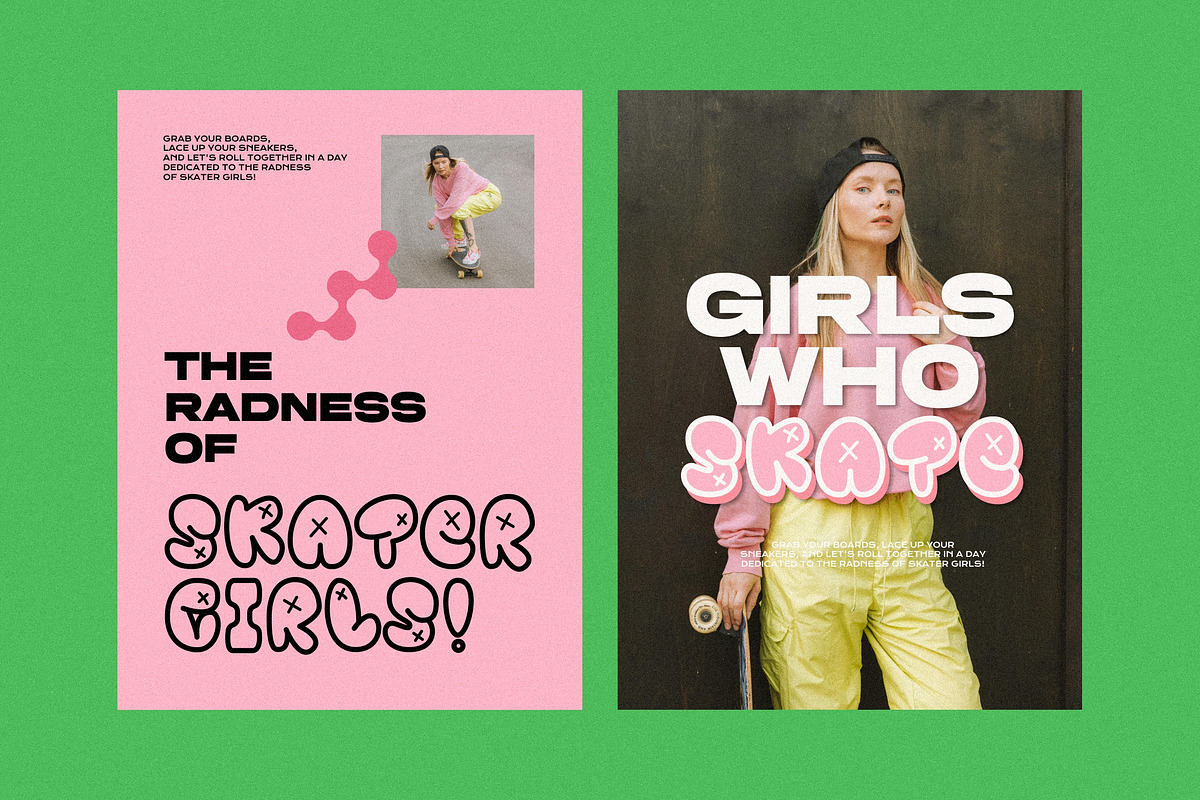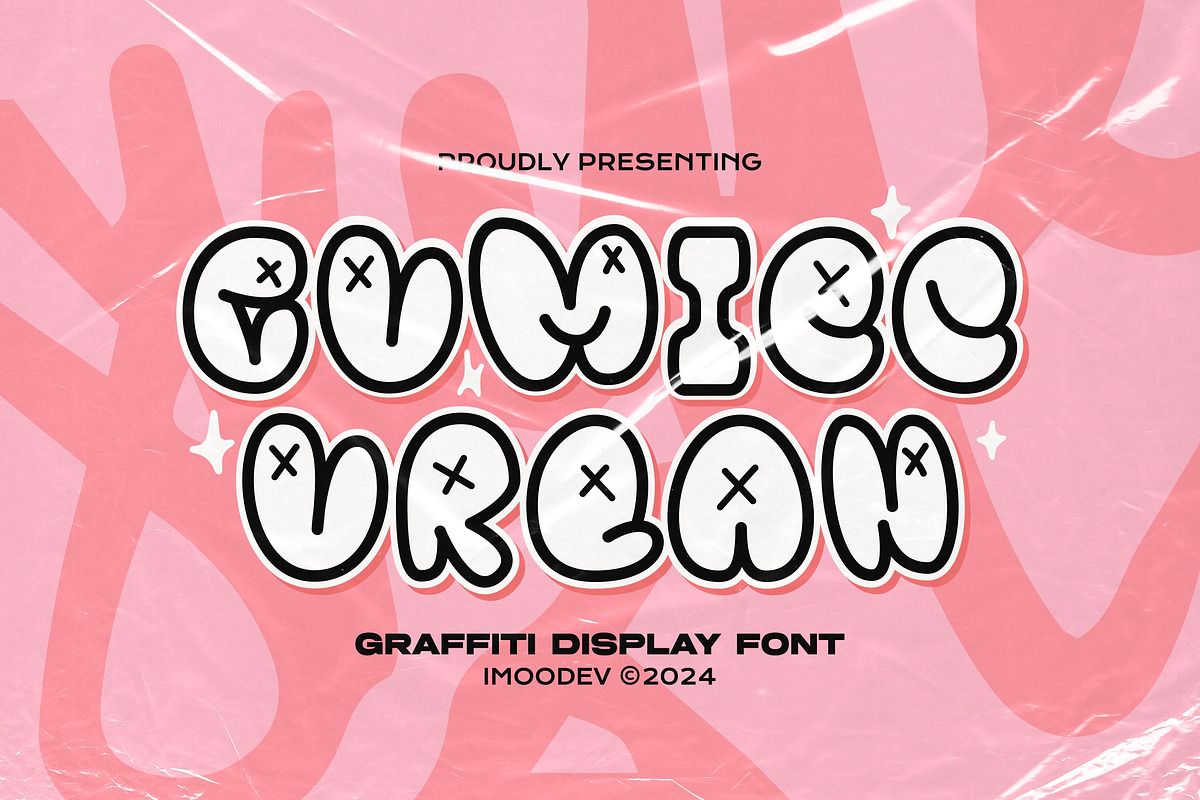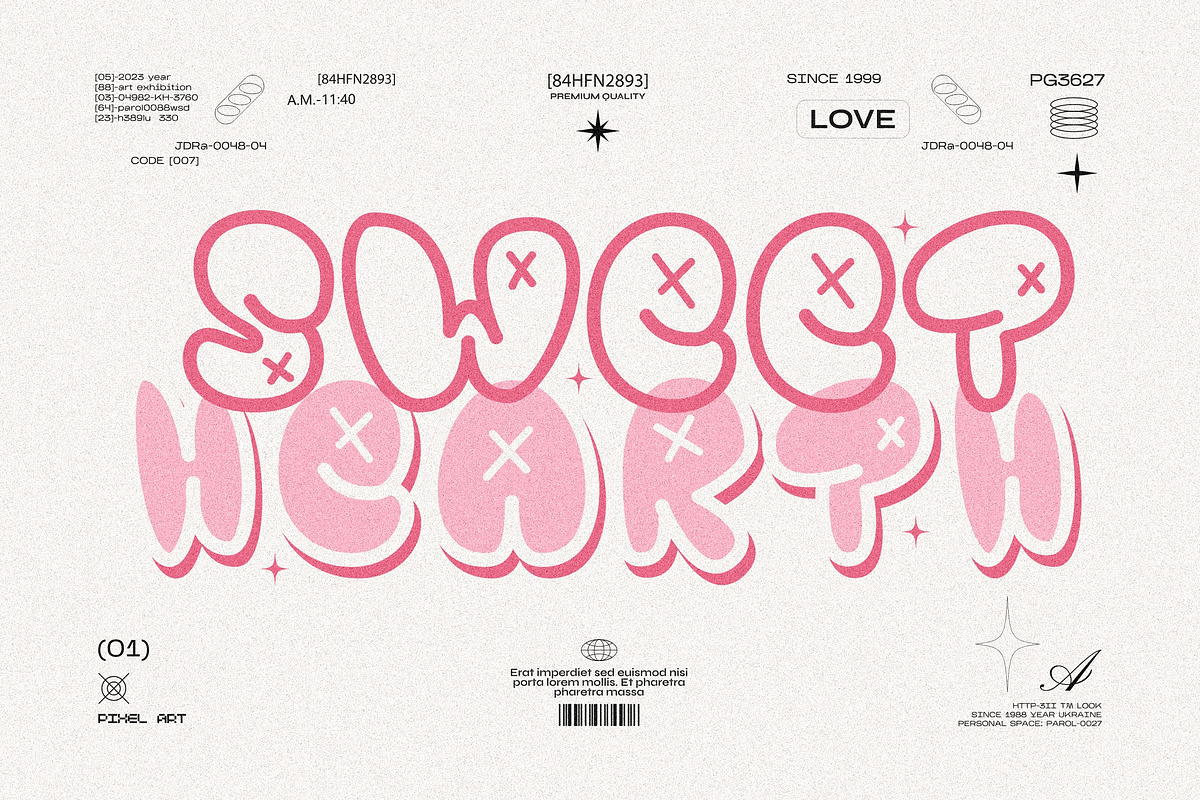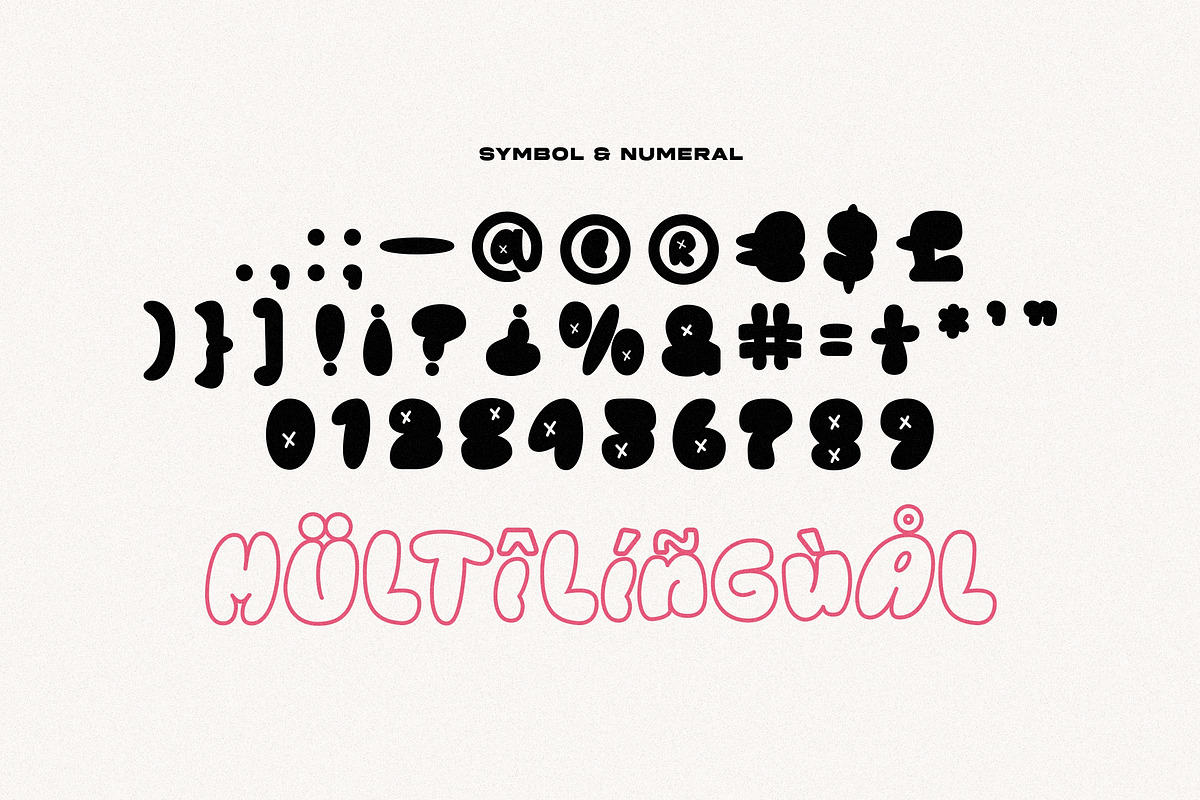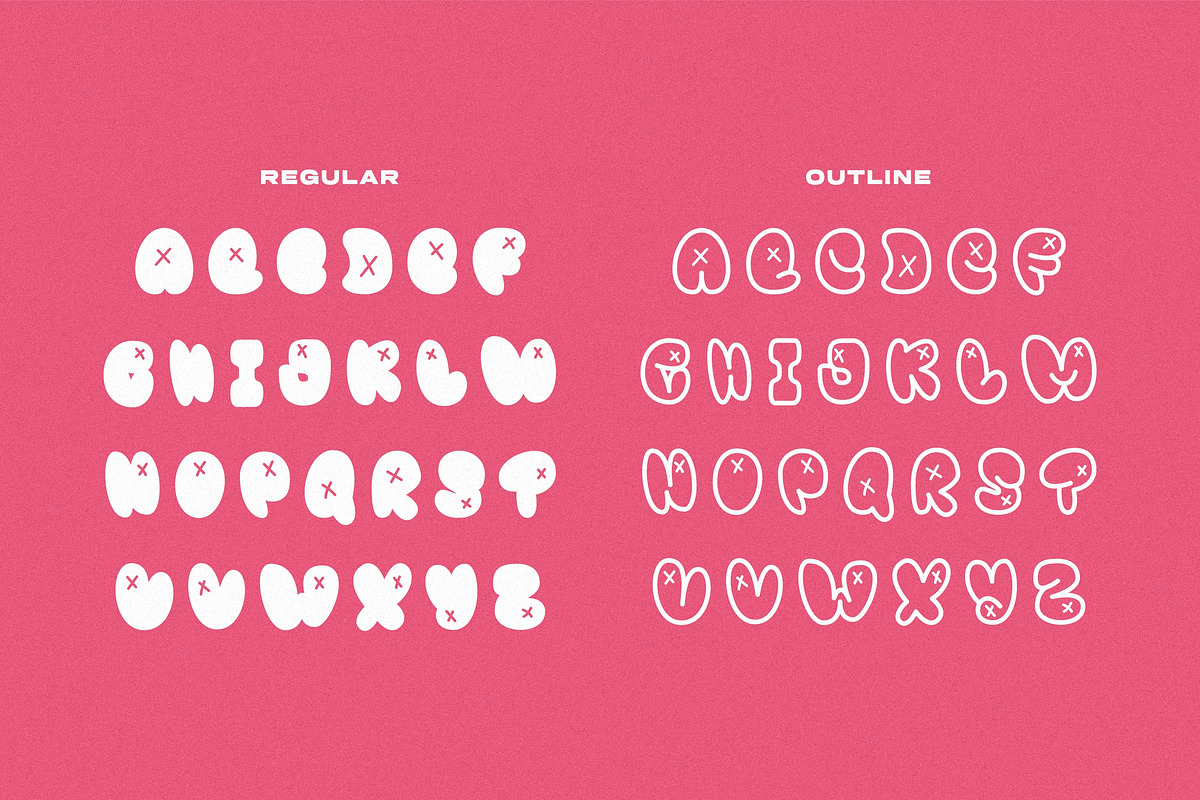
Gumiec Urban - Graffiti Bubble Font
Gumiec Urban is a graffiti bubble font with a strong urban and street art vibe, offers two distinct styles filled and outline.
The font gives off strong Y2K, skate, and street culture vibes. It's bold, fun, and highly expressive, ideal for streetwear brand, poster, fashion design, apparel, or campaigns aimed at youth, pop culture, or creative communities.
- Uppercase and Lowecase Characters.
- PUA Encoded Characters.
- Numerals and Punctuations.
- Alternates and Ligatures.
- Multilingual Support.